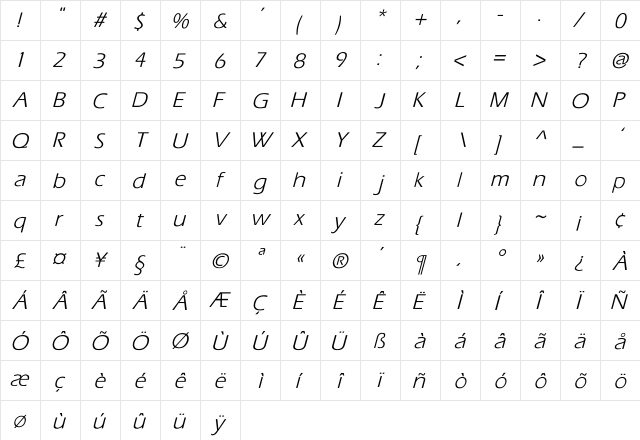
Tili Italic
Design Context for Tili Typeface
Tili is a composed and adaptable typeface that performs quietly and consistently across a wide range of design contexts. The slanted form adds forward momentum and visual energy.